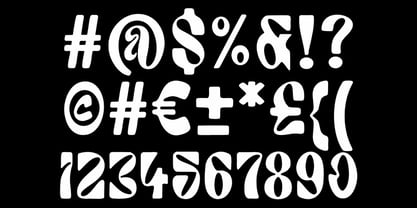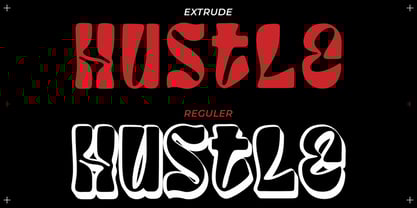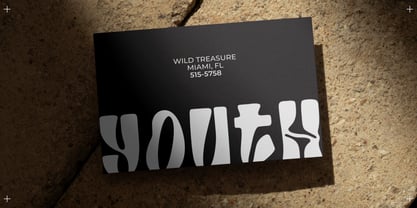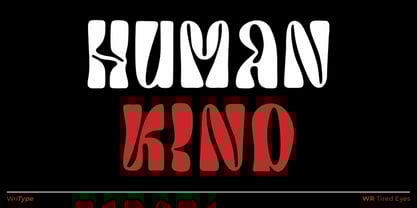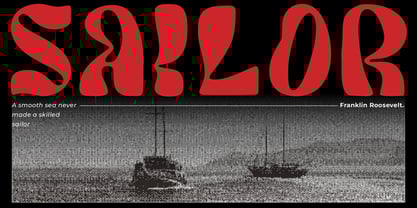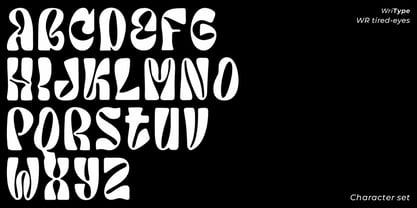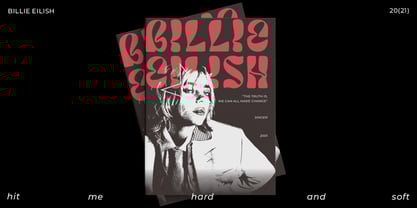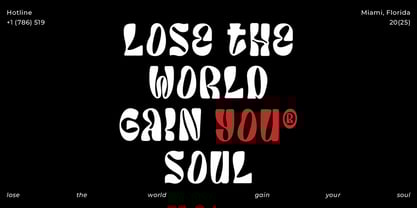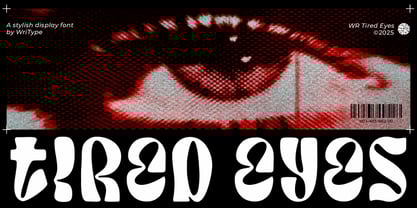
WR Tired Eyes
by WriType
The WR Tired Eyes Font Family was designed by Wira Pras and published by WriType. WR Tired Eyes contains 2 styles and family package options. More about this family
WR Tired Eyes is a bold, hand-drawn typeface inspired by the swirling rhythm of psychedelic art. With warped lines and expressive curves, it evokes a sense of movement and mood. Available in Regular and Extrude styles, it’s perfect for artworks that blur the line between reality and imagination—posters, music covers, zines, and more. Let your typography drift and dream.
Designers: Wira Pras
Foundry: WriType
About WriType
We are Writype, a team of three designers from Kebumen, Indonesia, specializing in display fonts. Founded in mid-2024, our focus is on creating unique and bold typography that stands out in design projects. Starting from our dismay with the many common fonts out there, we aim to break away from the norm and offer something fresh and impactful. Through Writype, we strive to create fonts that are both functional and visually appealing, bringing new energy to the world of typography.